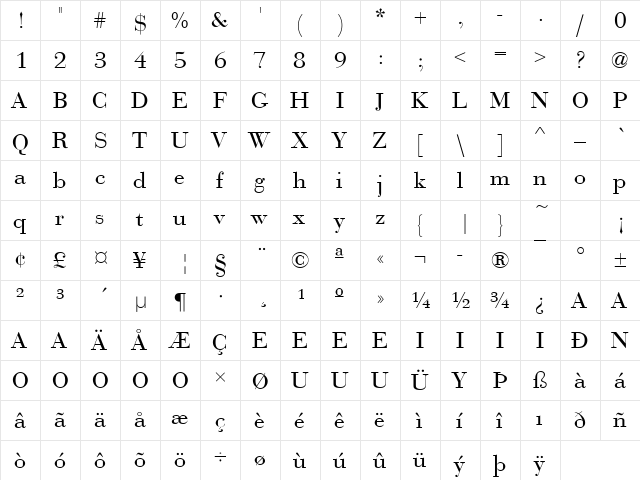
Bauer Bodoni D Regular
Design Context for Bauer Bodoni D Typeface
Bauer Bodoni D takes a measured approach to typography — its balanced proportions and neutral character make it a reliable workhorse for both digital and print work.